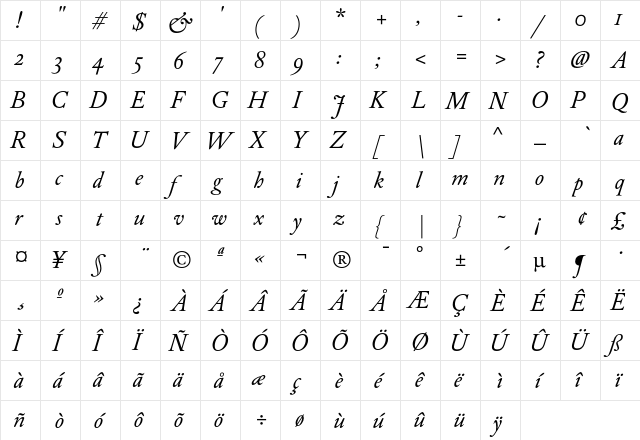
DTL Elzevir ST Italic
Design Context for DTL Elzevir Typeface
DTL Elzevir offers clean, dependable letterforms without strong stylistic allegiance, making it a practical choice for designers who need flexibility. The slanted form adds forward momentum and visual energy.
Pro Tip: Try DTL Elzevir for annotation and caption copy alongside an upright companion — the contrast in angle creates a dynamic but ordered typographic system.